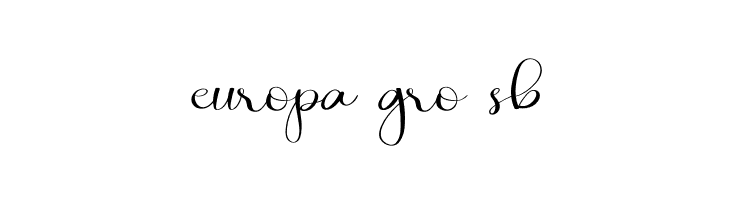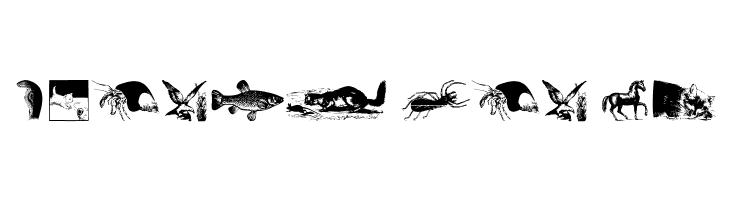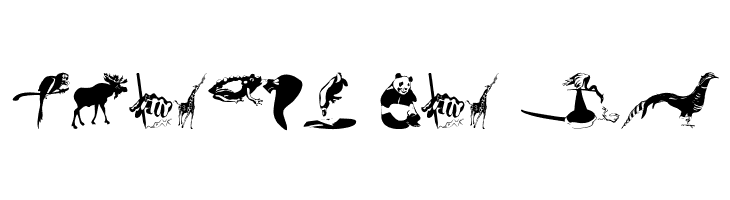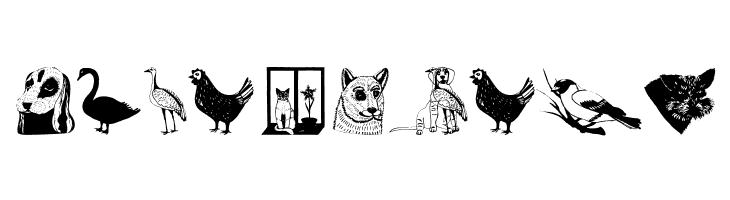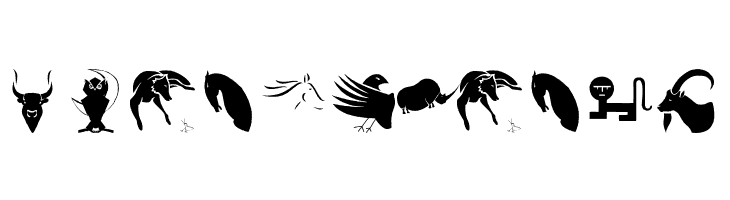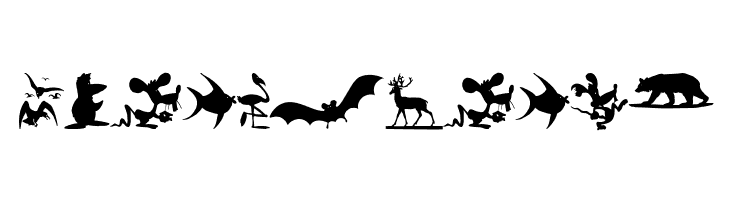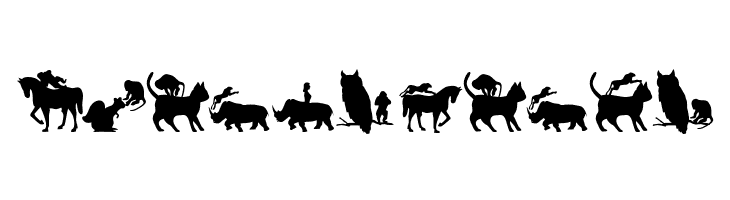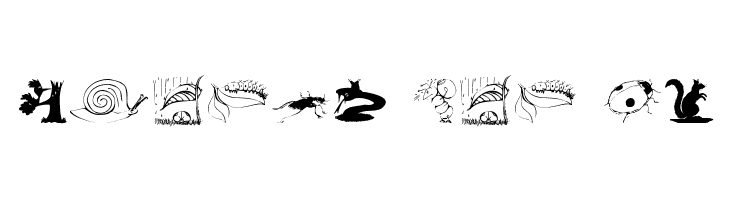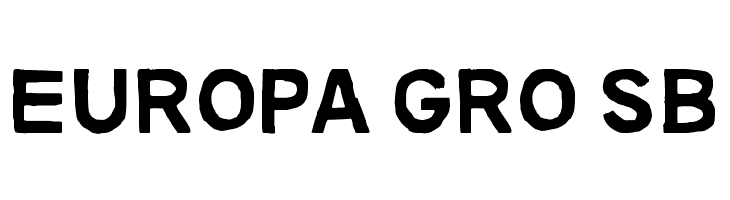
• Animals
An elegant script font with flowing, cursive style and intricate swashes.
• Animals are like people
A bold, hand-drawn font with a rugged and organic appearance.
• Animals are like people
A bold, hand-drawn font with a rugged and organic style.
• AnimalsAnywhere
Animal illustrations form each letter and symbol in a decorative, playful style.
• AnimalShadows
A decorative font using animal and insect silhouettes for each character.
• AnimalShadowsDrei
A playful decorative font made of animal silhouettes and tracks.
• AnimalShadowsTwo
Animal-themed decorative font with each glyph as a unique animal silhouette.
• AnimalsMeetings
Silhouette font using animals and humans to form each character.
• AnimalsOldfashion
Vintage animal illustration dingbat set.
• AnimalsPrey-2006
Animal silhouettes create each character in a decorative, illustrative style.